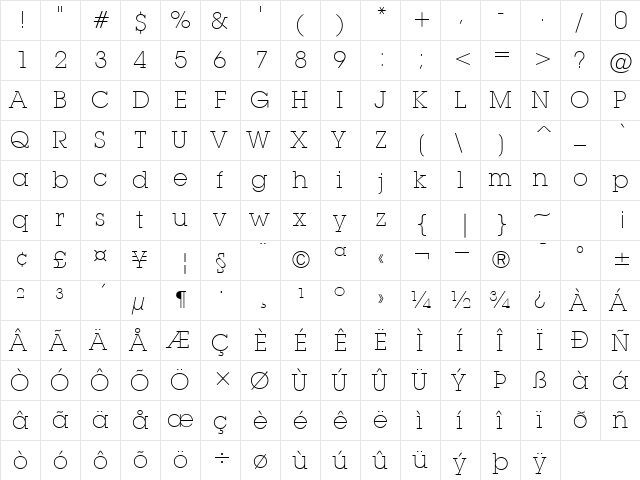
ITCLubalinGraph-ExtraLight Extra Light
ITCLubalinGraph-ExtraLight takes a measured approach to typography — its balanced proportions and neutral character make it a reliable workhorse for both digital and print work. Its slender proportions lend an understated elegance to any composition.